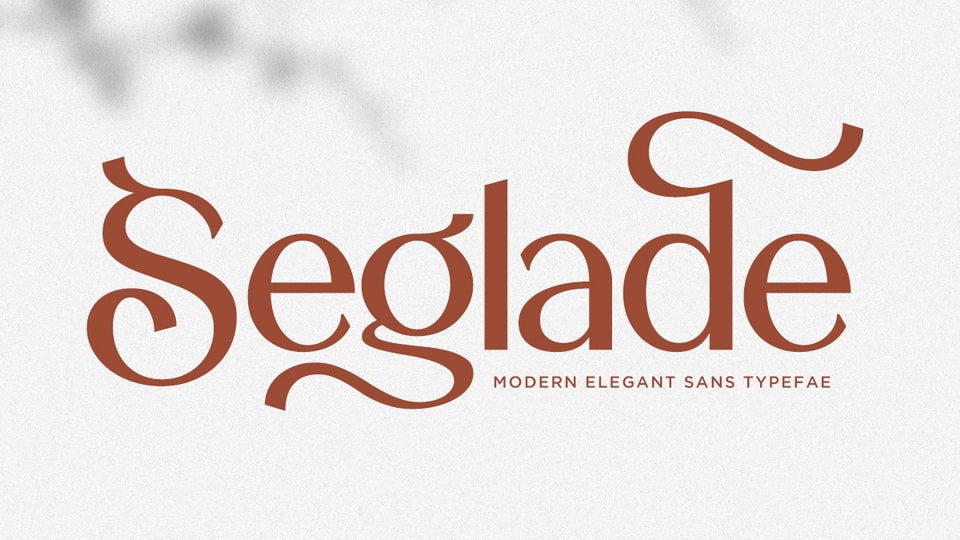
Download Seglade font, a modern elegant sans serif typeface that blends sophistication with expressive curves, designed for high-end branding, editorial layouts, fashion logos.